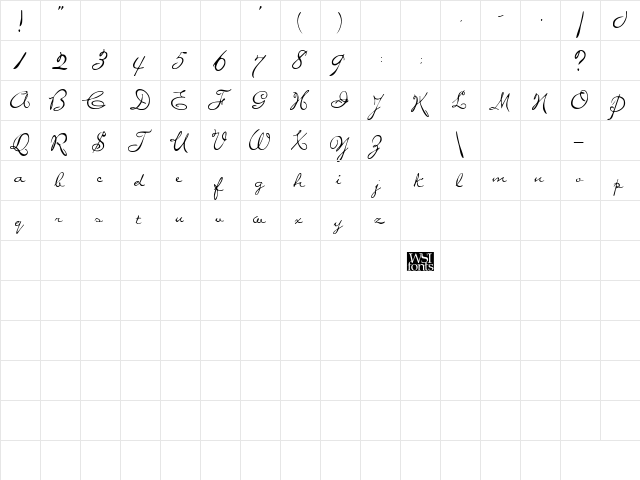
Penstyle Regular
Design Context for Penstyle Typeface
Penstyle is a composed and adaptable typeface that performs quietly and consistently across a wide range of design contexts.